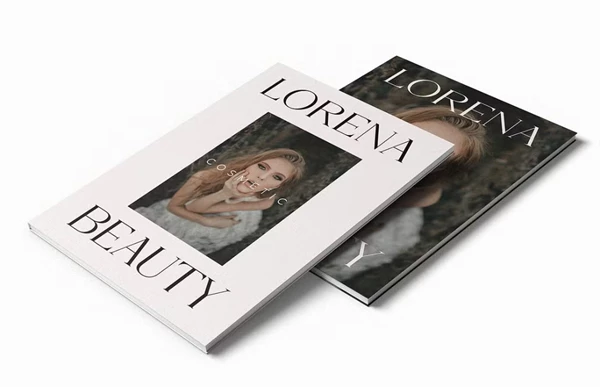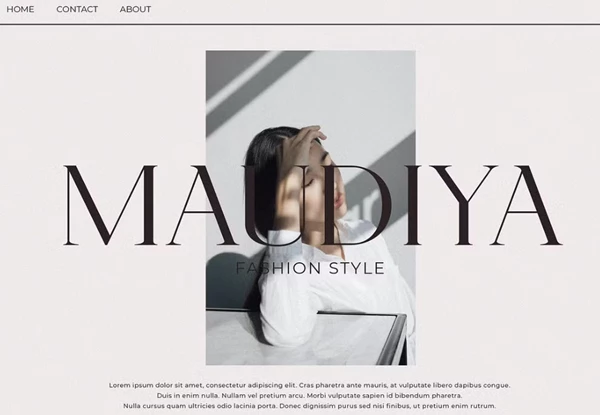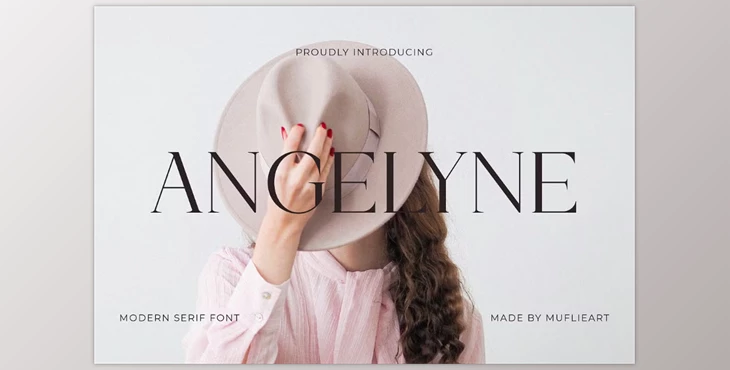
Angelyne - Modern Serif Font:
The Angelyne font is a modern serif typeface characterized by its elegant and simple appearance. This minimalist and sleek font is a perfect solution for projects requiring a creative yet clean and classy aesthetic. Angelyne is suitable for website creations, modern logos, brand identity projects, social media quotes, wedding invites, magazines, and more!
Angelyne comes with remarkable and unique capital letters from A to Z. Thus, Angelyne can be used differently across various projects. This font is suitable for logos, brands, wedding invitations, business cards, greeting cards, posters, magazines, social media, printed agendas, and web pages.